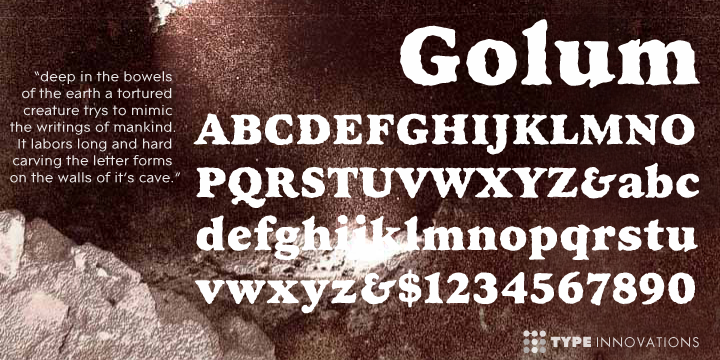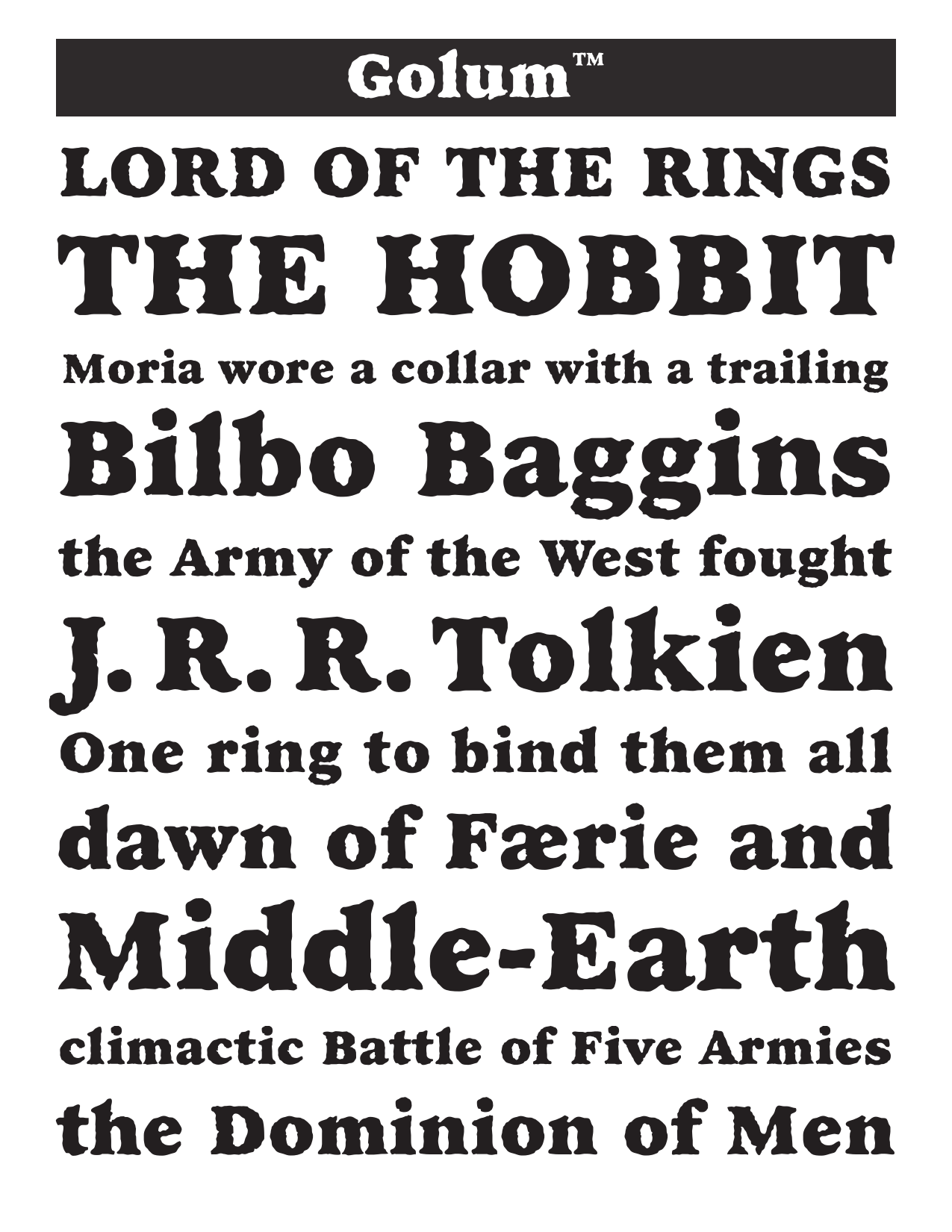
Golum
Golum is a rustic, friendly, chubby typeface with rounded serifs and tilted ovals. It is perfect whenever an informal, friendly character is desired in your designs.
This is a display font first and foremost, but is also comfortable at smaller sizes for longer copy, and so works well in a supporting role to a more exuberant titling font.